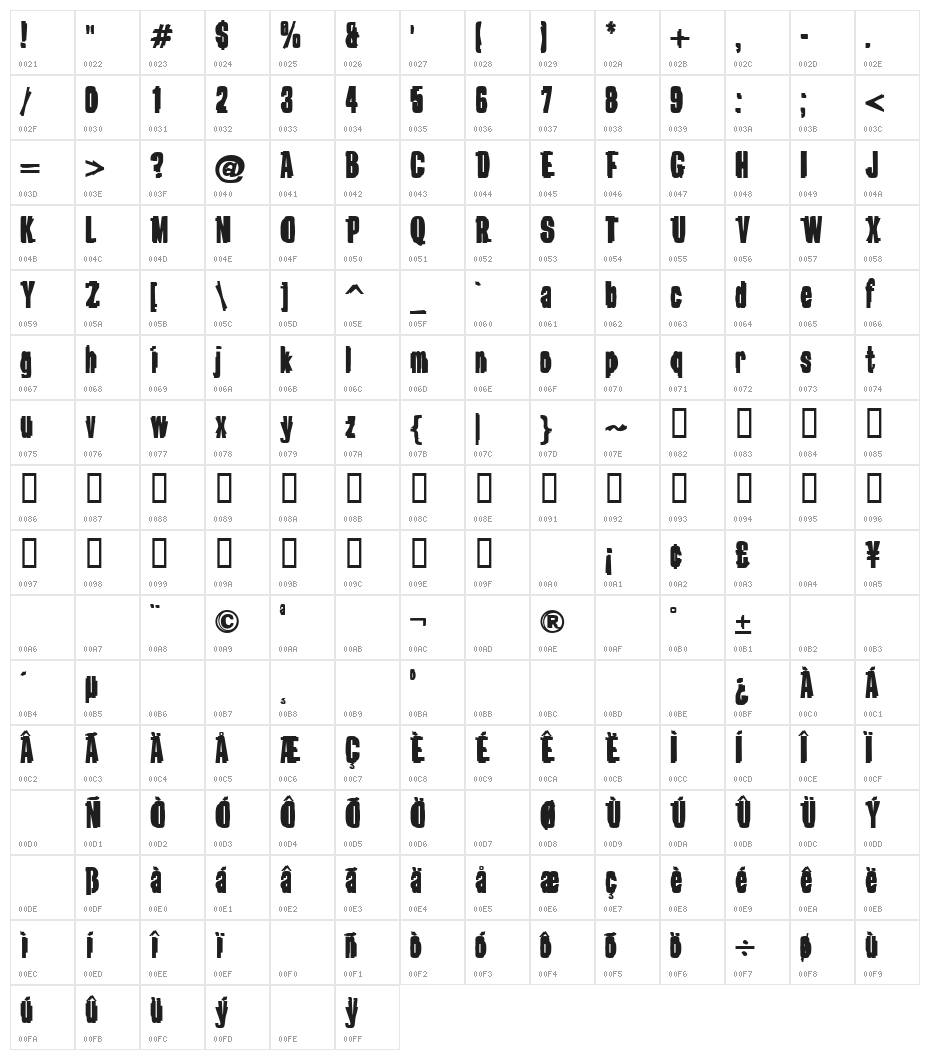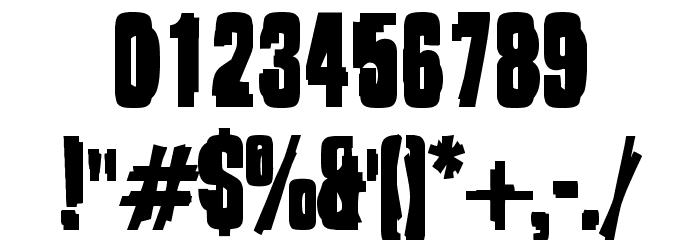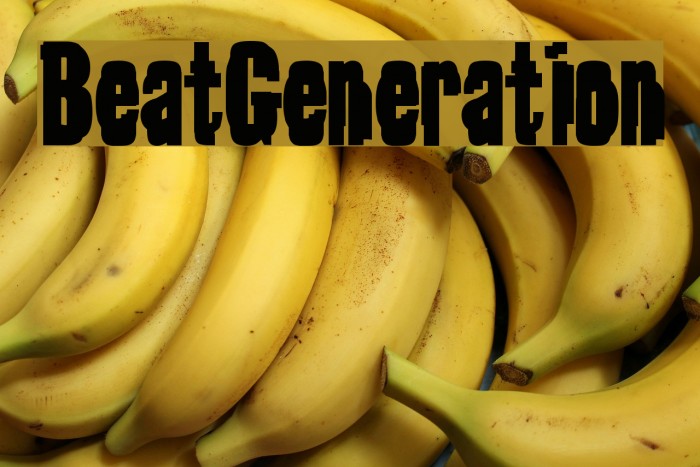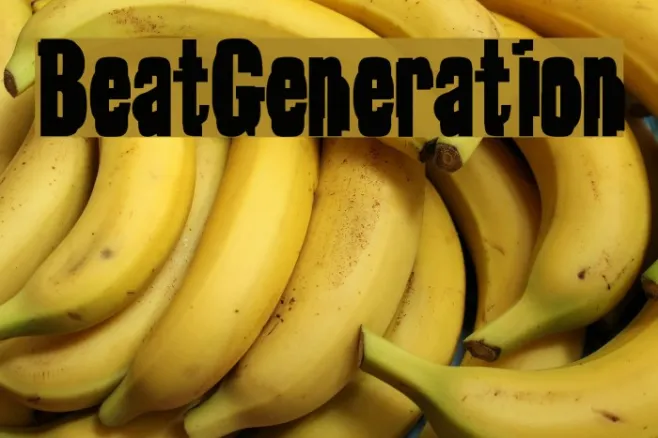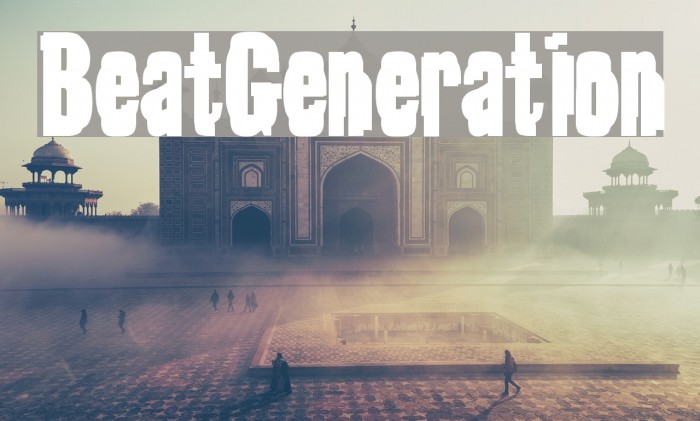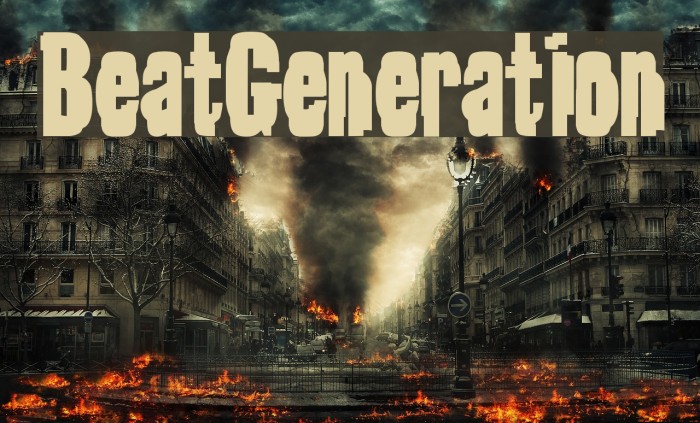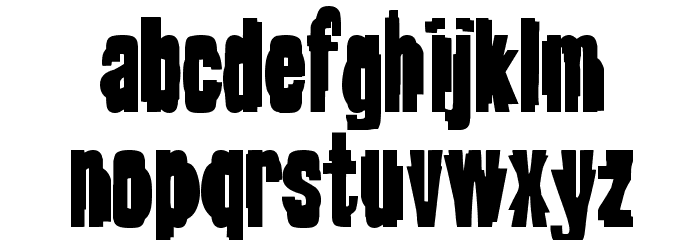
BeatGeneration Font
BeatGeneration Description
This font features a bold and impactful design, characterized by thick, heavy strokes and a strong presence. The letters are tightly spaced, creating a compact and cohesive look. The uppercase letters are particularly striking, with a blocky and robust appearance that commands attention. The lowercase letters maintain the same boldness, ensuring consistency throughout the typeface. The numbers and special characters follow suit, offering a uniform style that is both assertive and dynamic. This font is ideal for projects that require a strong visual impact and a sense of boldness.
| Proposed Projects | Ideal for posters, headlines, branding, and any project needing a strong visual impact. |